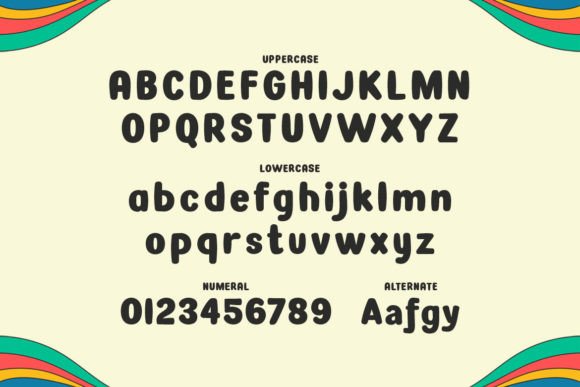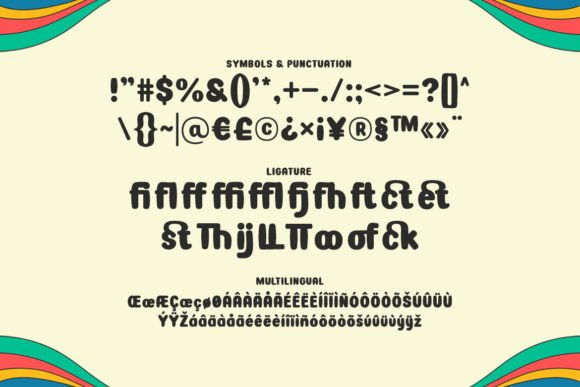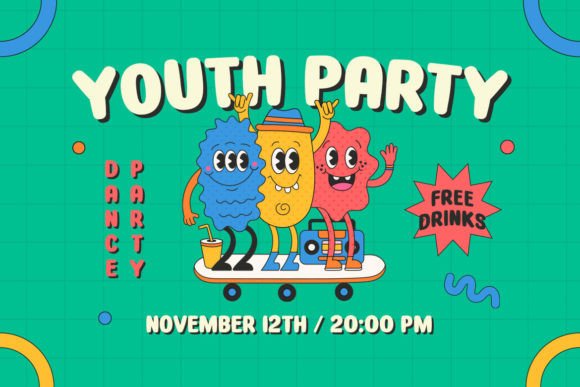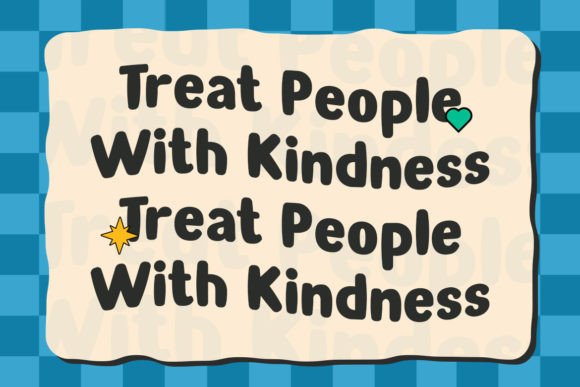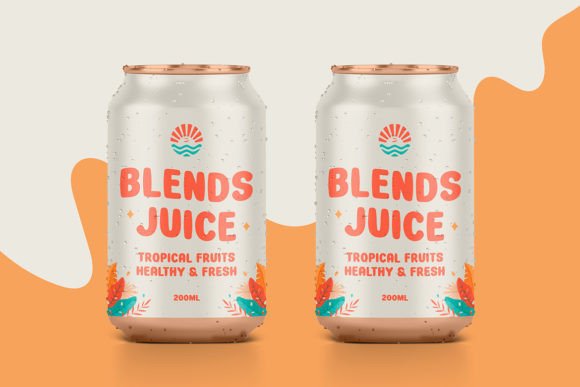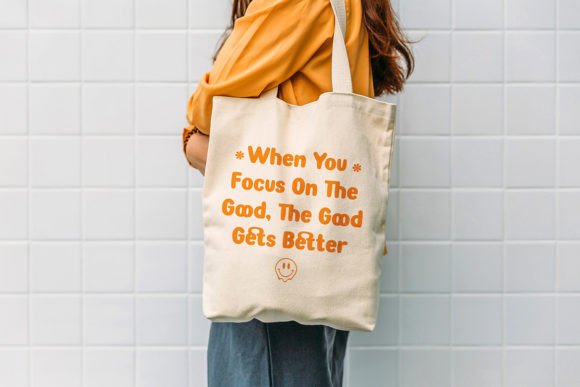
Discover the Charm of Harvey Font: A Playful yet Sophisticated Design Solution
Are you on the hunt for a font that strikes the perfect balance between playfulness and sophistication? Look no further than Harvey, a delightful and elegant rounded fancy font style that’s sure to elevate your designs to new heights. With its rounded letterforms and fancy details, Harvey is the ideal choice for designers and crafters seeking to add a touch of whimsy to their projects.
The Unique Characteristics of Harvey Font
Harvey font is a masterfully crafted typeface that boasts a distinctive charm. Each letter is carefully designed to be both playful and elegant, making it an excellent choice for high-end projects that demand a sophisticated aesthetic. The rounded letterforms of Harvey font give it a friendly and approachable feel, while the fancy details add a level of refinement and luxury.
Harvey font is incredibly versatile and can be used in a variety of design applications. Whether you’re creating wedding invitations, greeting cards, or other print materials, Harvey is the perfect font for the job. Its elegant and playful design makes it an excellent choice for:
• Branding and Logos: Harvey font is perfect for creating unique and memorable brand identities that stand out from the crowd.
• Editorial Design: Add a touch of sophistication to your editorial designs, such as magazines, newspapers, and books.
• Packaging: Harvey font is great for use in packaging design, adding a level of luxury and refinement to your products.
• Wedding Invitations and Greeting Cards: Create beautiful and elegant wedding invitations and greeting cards that will leave a lasting impression.
Why Choose Harvey Font?
So, why should you choose Harvey font for your design projects? Here are just a few reasons:
• Unique and Eye-Catching: Harvey font is a one-of-a-kind typeface that’s sure to grab attention and leave a lasting impression.
• Playful yet Sophisticated: Harvey font strikes the perfect balance between playfulness and sophistication, making it suitable for a wide range of design applications.
• Elegant and Refined: The fancy details and rounded letterforms of Harvey font give it an air of elegance and refinement, perfect for high-end projects.
• Versatile: Harvey font can be used in a variety of design applications, from branding and logos to editorial design and packaging.
How to Use Harvey Font in Your Designs
• Pair it with Other Fonts: Harvey font pairs well with a variety of other fonts, so feel free to experiment and find the perfect combination for your design.
• Experiment with Different Sizes: Harvey font looks great in a variety of sizes, from large headings to smaller body text.
• Use it in Combination with Images: Harvey font looks great when used in combination with images, so consider using it to add a touch of elegance to your designs.
In conclusion, Harvey font is a charming and elegant rounded fancy font style that’s perfect for designers and crafters seeking to add a touch of whimsy to their projects. With its unique characteristics, versatility, and elegant design, Harvey font is sure to become a go-to choice for a wide range of design applications. So why wait? Discover the charm of Harvey font today and take your designs to new heights!